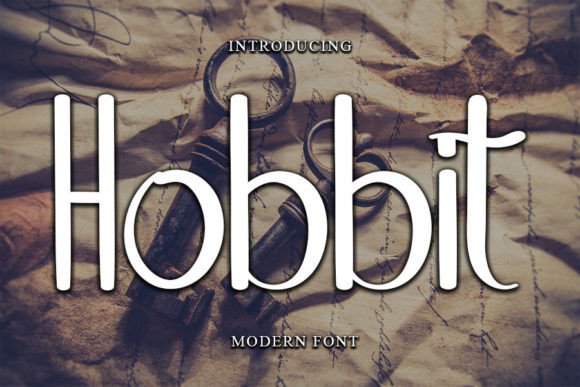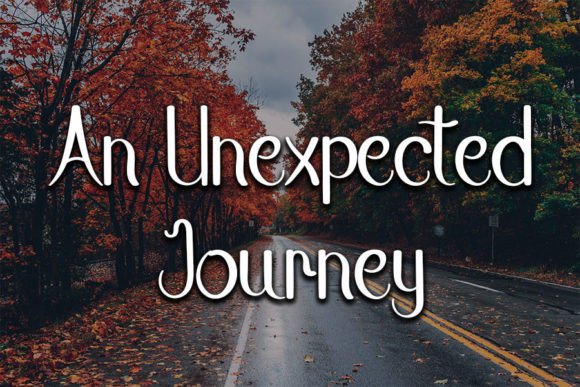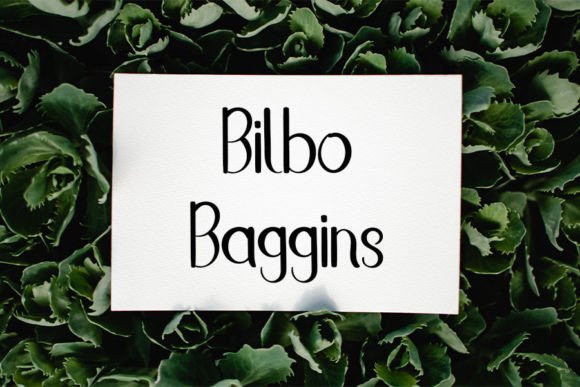
About Hobbit Font
“Hobbit” is a vibrant handwritten font that has been thoughtfully designed to incorporate a delightful touch of elegance. Its clean yet slightly whimsical appearance makes it an ideal choice for a wide range of creative applications, including logos, branding, social media content, and various crafty DIY projects.
The font “Hobbit” possesses a unique charm that sets it apart from standard typefaces. Its playful yet refined style infuses a touch of personality into your designs, making them more visually appealing and engaging. Whether you’re working on a business logo, developing a brand identity, or crafting content for your social media platforms, “Hobbit” offers a versatile and captivating choice.
For branding efforts, “Hobbit” can be instrumental in creating a distinct and memorable visual identity. Its handwritten aesthetic adds an authentic and approachable quality, which can resonate with your target audience. This font is particularly well-suited for businesses or products seeking to strike a balance between professionalism and creativity.
In the realm of social media, where visual content is paramount, “Hobbit” can help your posts and profiles stand out. Whether you’re designing graphics, featuring quotes, or creating promotional materials, this font injects character into your messages, making them more shareable and relatable.
Furthermore, “Hobbit” is an excellent choice for DIY enthusiasts and crafters. Whether you’re designing invitations, crafting handmade items, or undertaking personal projects, this font’s playful yet elegant nature adds a delightful and personalized touch to your creations. Its versatility allows it to adapt seamlessly to a wide range of crafting endeavors.
In summary, “Hobbit” is a lively handwritten font that strikes a harmonious balance between cleanliness and whimsy. Its versatility makes it suitable for a plethora of creative projects, from professional branding and social media content to fun and crafty DIY ventures. With “Hobbit,” you can infuse your designs with a touch of elegance and personality, leaving a lasting and positive impression on your audience.